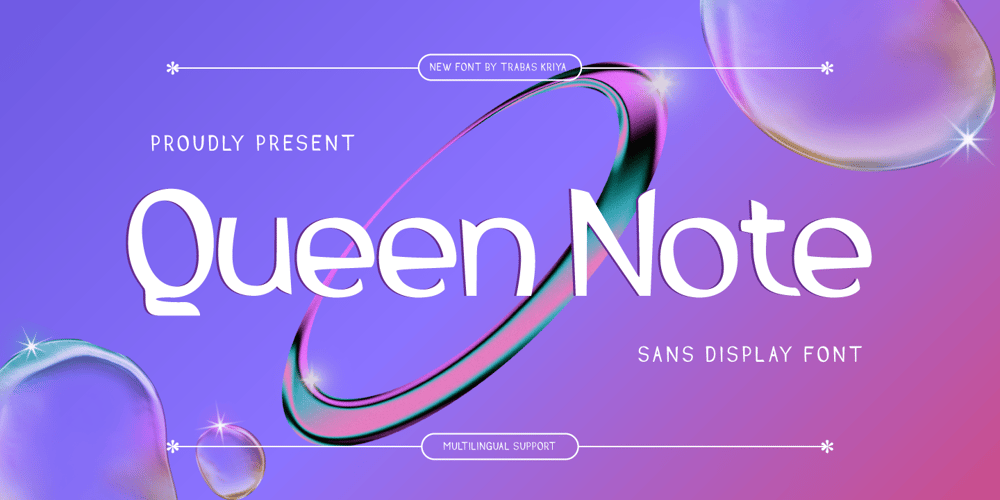
Queen Note Font Family was designed by Murozakul Akhsan and published by Trabas Kriya. Queen Note contains 1 styles and family package options. Queen Note is a display font that’s all about creativity. Its unique, artistic characters make it a standout choice for branding, advertising, and any design where you want to make a bold statement. With Queen Note, your designs will always be eye-catching.What’s Included:- All glyphs and Feature- We highly recommend using a program that supports OpenType features and Glyphs panels like many Adobe apps and Corel Draw so that you can see and access all Glyph variations.- PUA Encoded Characters, Fully accessible without additional design software.- Fonts include Multilingual: Support for 85 languages. Afrikaans, Albanian, Asu, Basque, Bemba, Bena, Breton, Catalan, Chiga, Cornish, Croatian, Czech, Danish, Dutch, Embu, English, Esperanto, Estonian, Filipino, Finnish, French, Friulian, Galician, Gusii, Hungarian, Indonesian, Irish, Italian, Kabuverdianu, Kalenjin, Kamba, Kikuyu, Kinyarwanda, Latvian, Lithuanian, Lower, Sorbian, Luo, Luxembourgish, Luyia, Machame, Makhuwa-Meetto, Makonde, Malagasy, Maltese, Manx, Meru, Morisyen, North, Ndebele, Norwegian Bokmål, Norwegian Nynorsk, Nyankole, Oromo, Polish, Portuguese, Quechua, Romanian, Romansh, Rombo, Rundi, Rwa, Samburu, Sango, Sangu, Scottish, Gaelic, Sena, Serbian, Shambala, Shona, Slovak, Slovenian, Soga, Somali, Spanish, Swahili, Swedish, Swiss German, Taita, Teso, Turkish, Upper Sorbian, Uzbek (Latin), Volapük, Vunjo, Walser, Zulu.